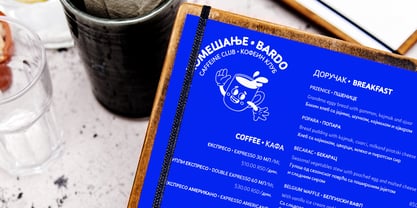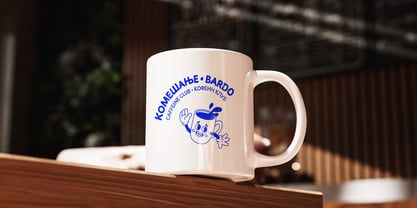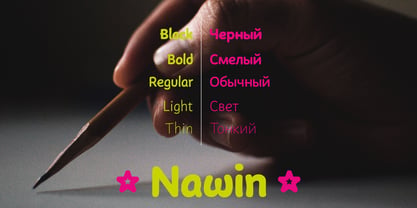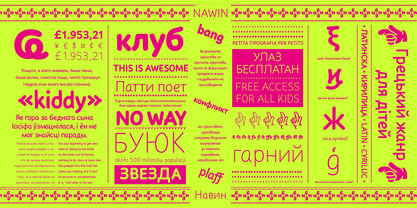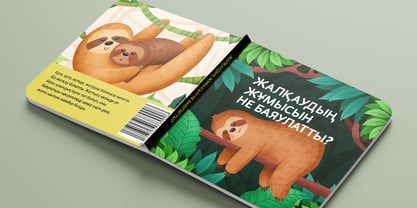
Nawin Cyr Ltn
by Letterjuice
The Nawin Cyr Ltn Font Family was designed by Pilar Cano, Ferran Milan and published by Letterjuice. Nawin Cyr Ltn contains 5 styles and family package options. More about this family
Nawin is an informal Arabic typeface inspired by handwriting. The idea behind this design is to create a type family attractive and ownable for children but at the same time a design that keeps excellent letter recognition for reading. Handwriting has been a great source of inspiration in this particular typeface. By emulating the movements of the pen, we have obtained letter shapes that express spontaneity. A bright group of letters create a lively and beautiful paragraph of text. To get closer to handwriting and the variety of letter shapes that we draw while writing, this typeface offers a large number of alternative characters, which differ slightly from the default ones. Because we have programed the «Contextual Alternate» feature in the fonts, these alternate characters appear automatically as you set a text on your computer.
Designers: Pilar Cano, Ferran Milan